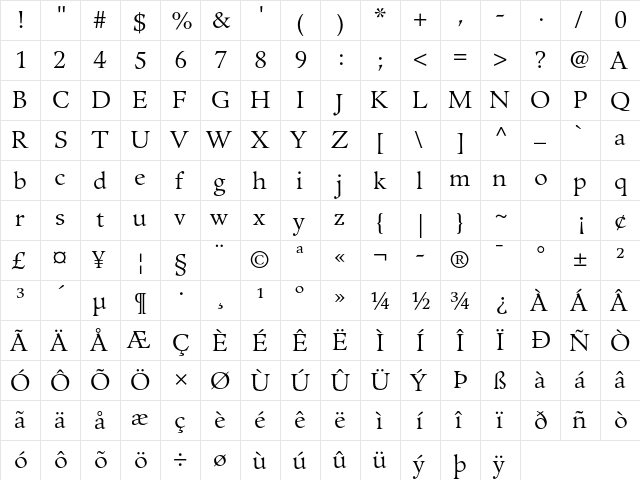
Guardi LT Std 55 Roman
| Designer | Reinhard Haus |
Design Context for Guardi LT Std Typeface
Guardi LT Std is a composed and adaptable typeface that performs quietly and consistently across a wide range of design contexts. The delicate stroke weight brings airiness and refinement to layouts.